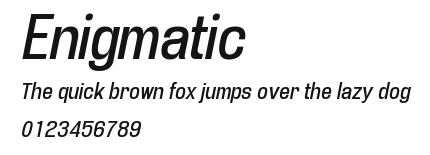
Enigmatic Preview
• Font Name: Enigmatic
• Font ID: Enigmatic Italic
• Full Font Name: Enigmatic Italic
• Version: Version 2.0, February 2002
• PostScript Name: EnigmaticItalic
• Character Count: 253
• Designer: Darren Rigby
• Manufacturer: Starving-4 Entertainment
• Description: I created this font in FCP's thirty day trial. Since then it's undergone a number of renovations, and it's looking pretty good.
About Enigmatic.ttf
Enigmatic.ttf is a modern, elegant sans-serif font designed for ultimate readability and visual harmony. Perfect for branding, headlines, web design, and print materials.